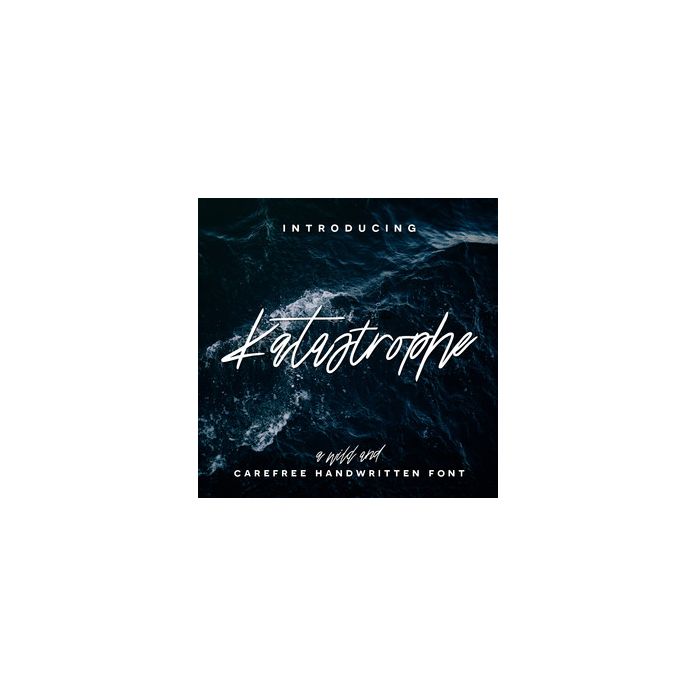
Katastrophe is a wild and carefree font with a playful baseline and quickhand qualities. Comes with a full set of capitals, lowercase, numerals, punctuation, and international language support. This font includes 182 glyphs.